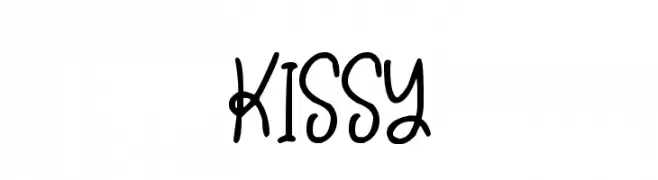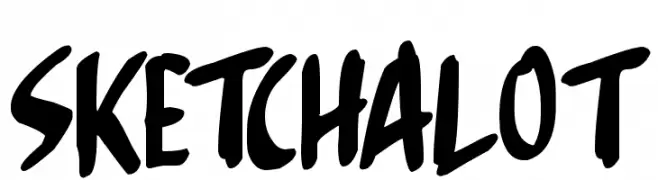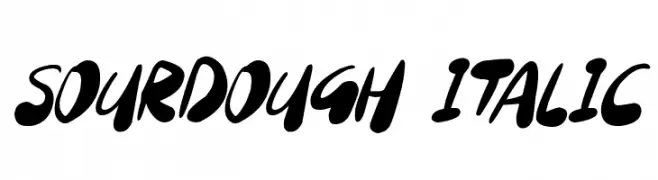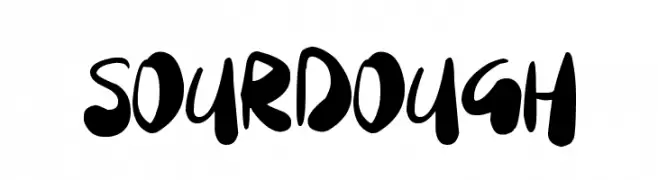
• Skin And Bones
• Skinnymalink
( Fonts by Darrell Flood )
A playful, bold, hand-drawn font with a cartoonish style.
• Sourdough
( Fonts by Darrell Flood )
A bold, playful handwritten font with a dynamic, brush-like style.
• Sourdough Italic
( Fonts by Darrell Flood )
A bold, italic, handwritten-style font with dynamic and expressive characters.
• Kissy
• Love And Romance Italic
A playful, romantic script font with a fluid, handwritten style.
• Love And Romance
A playful handwritten font with a whimsical and romantic touch.
• Sketchalot
( Fonts by Darrell Flood )
A bold, hand-drawn font with a playful and energetic style.
• Fairies
( Fonts by Darrell Flood )
A whimsical, decorative font with a fairy-tale-like appearance.
• Ninjastrike